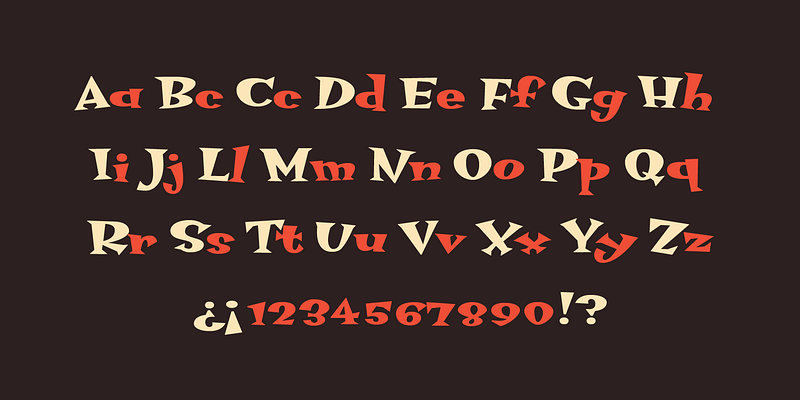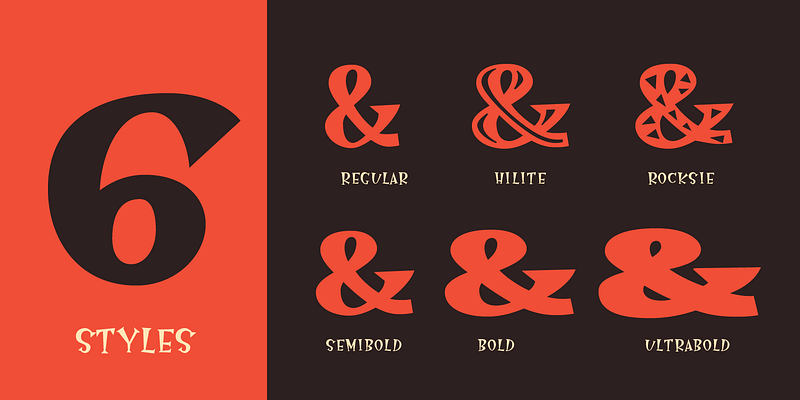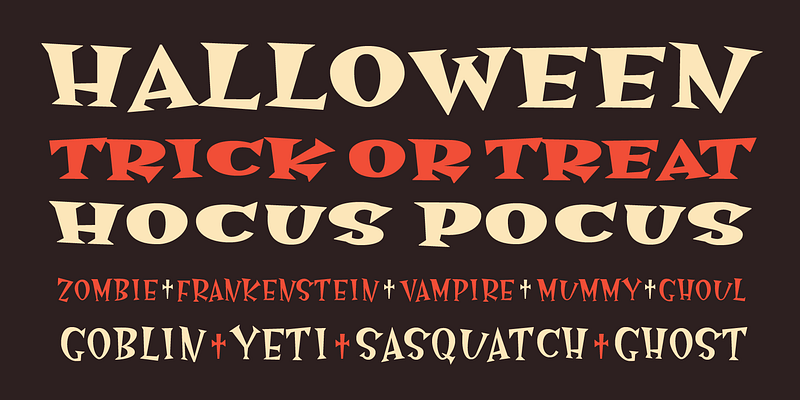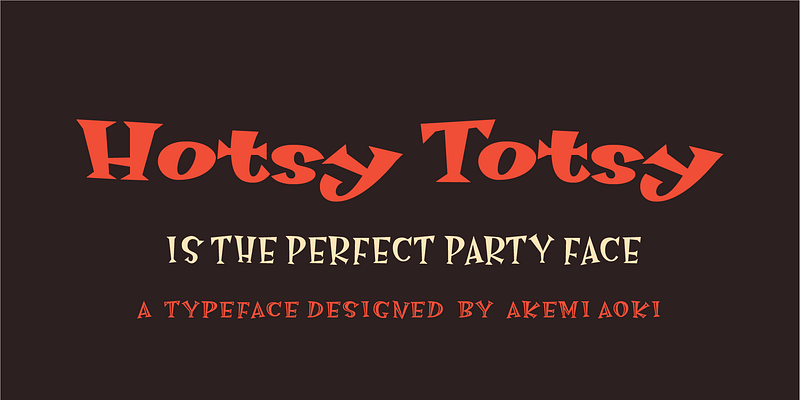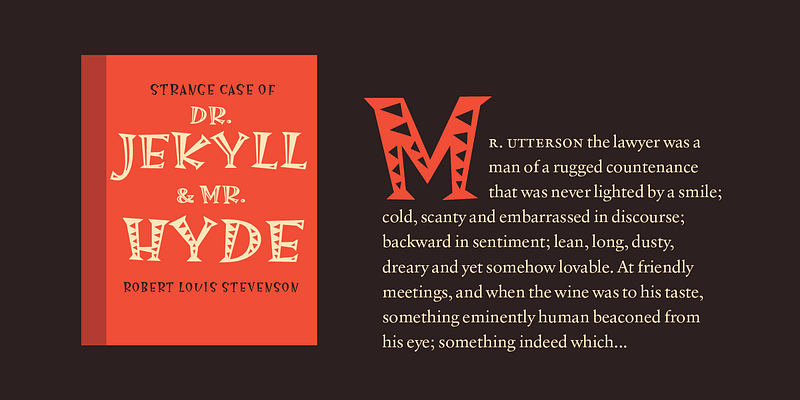
MVB Hotsy Totsy is Akemi Aoki’s first typeface design. Aoki created the letters in cut paper. Once digitized, the design was expanded to offer several weights and styles. Exaggerating the triangular serifs and tapering strokes of “Latin” typefaces, MVB Hotsy Totsy is the perfect party face, appearing frequently on board games, product packaging, and in children’s books. It is named for (what was at the time) a dive bar in Albany, California. The bar has since been renovated but its neon sign was preserved, a local landmark of San Francisco’s East Bay.